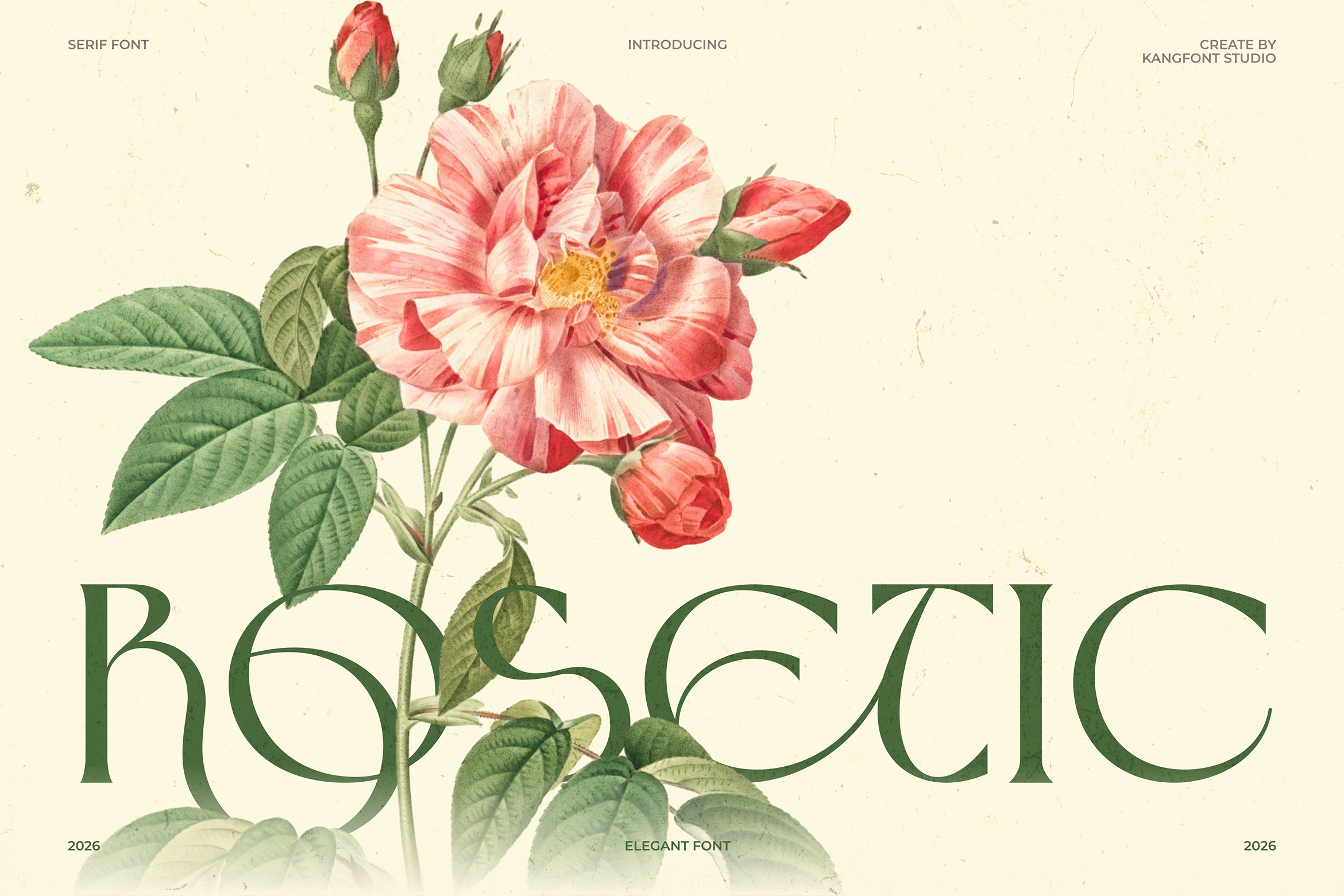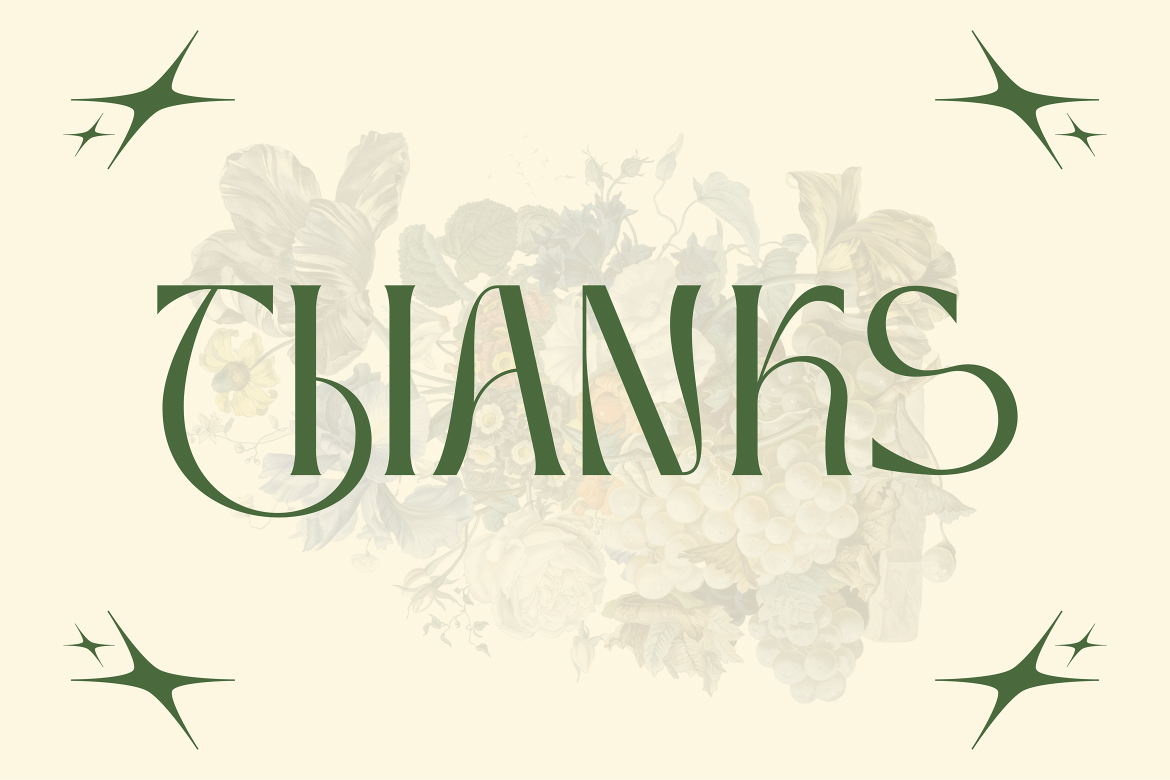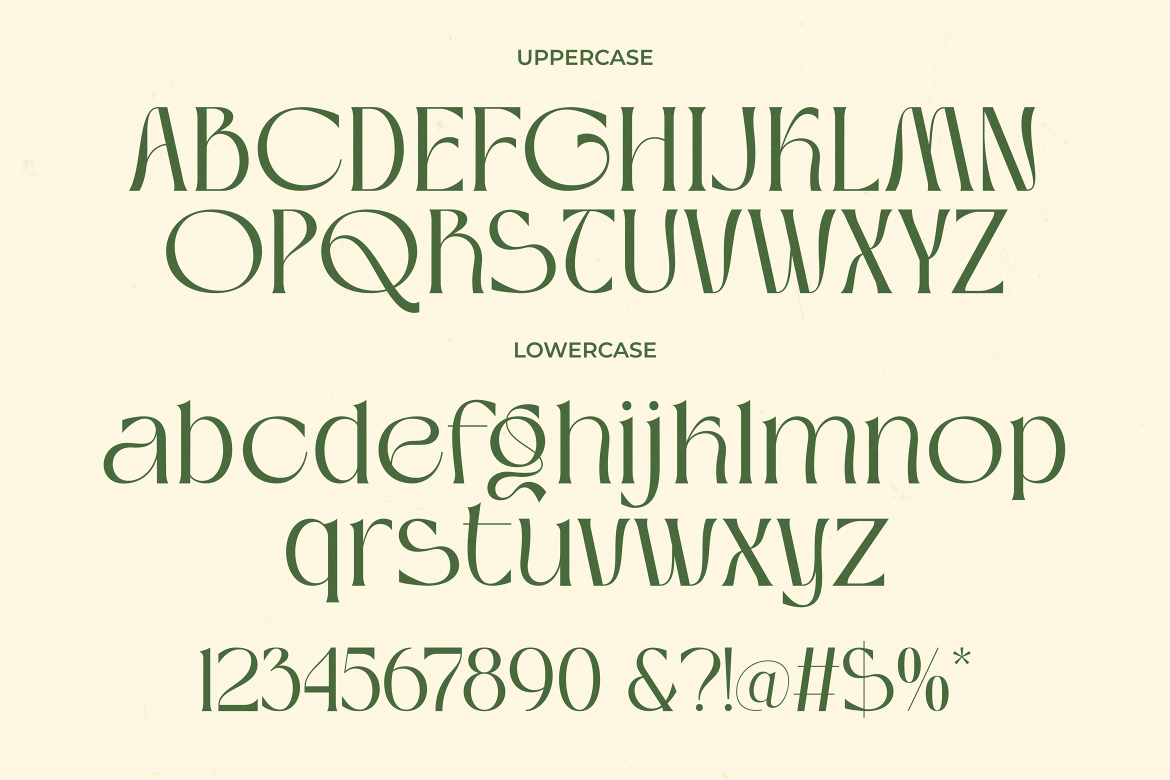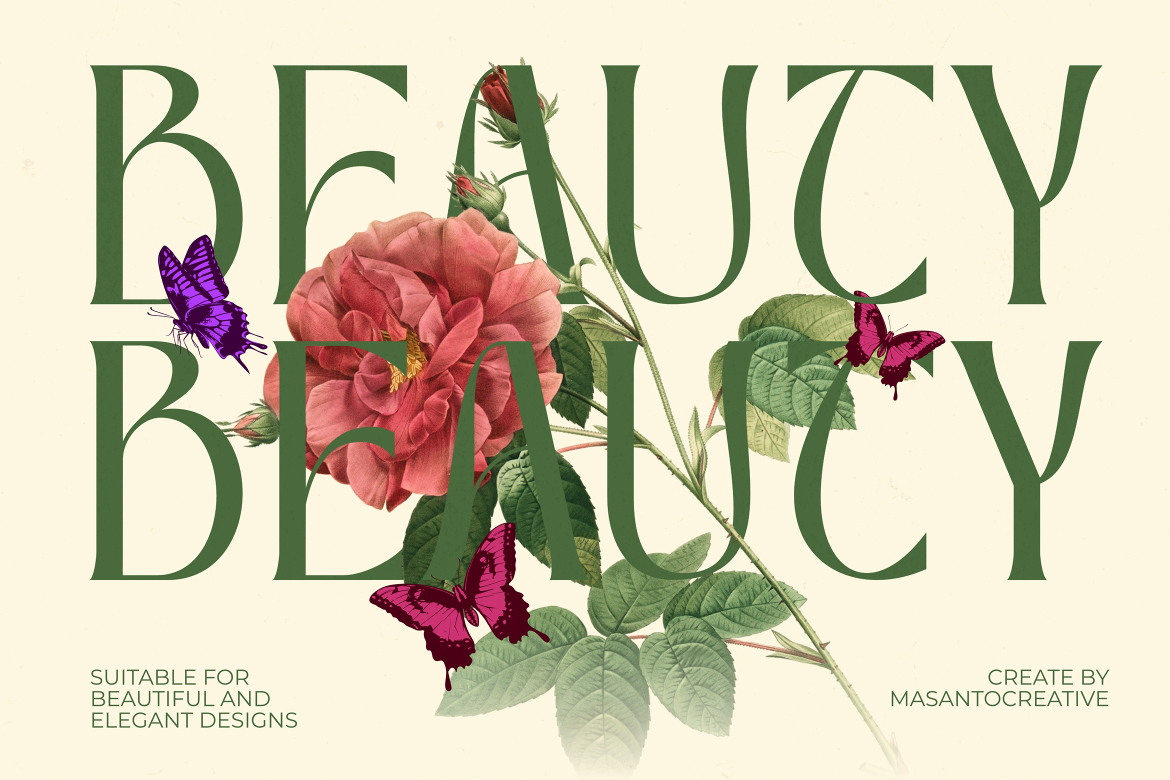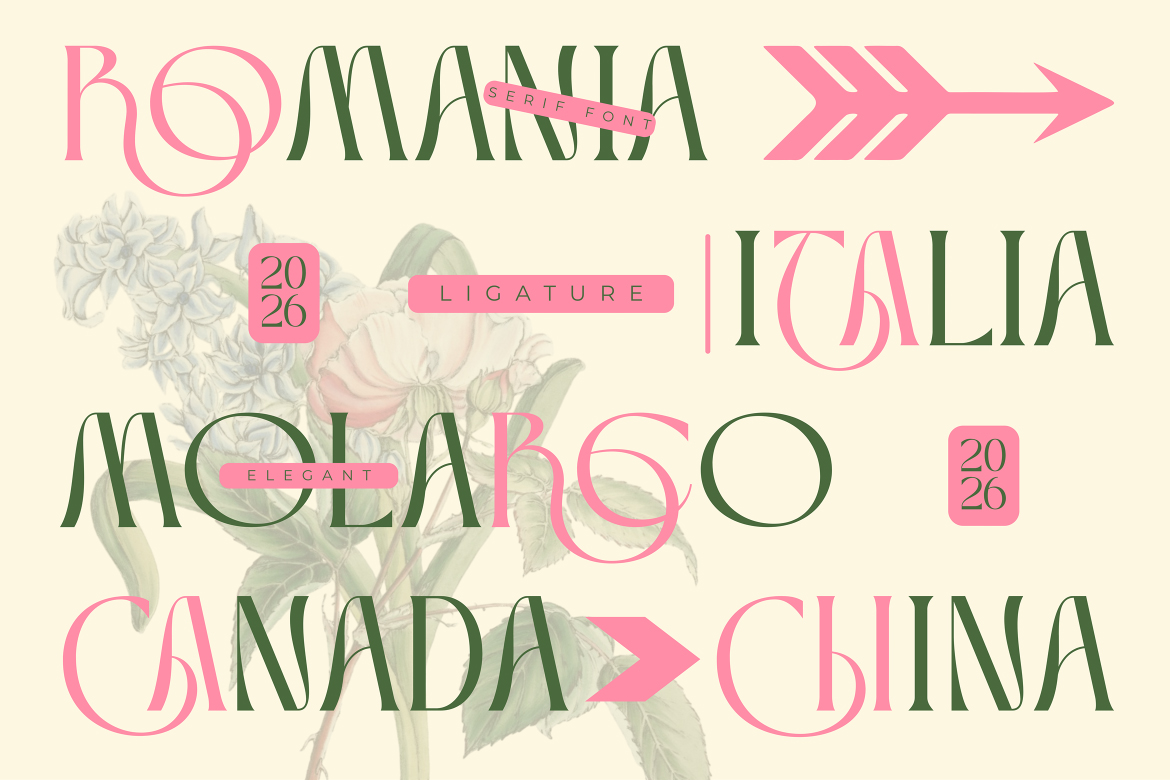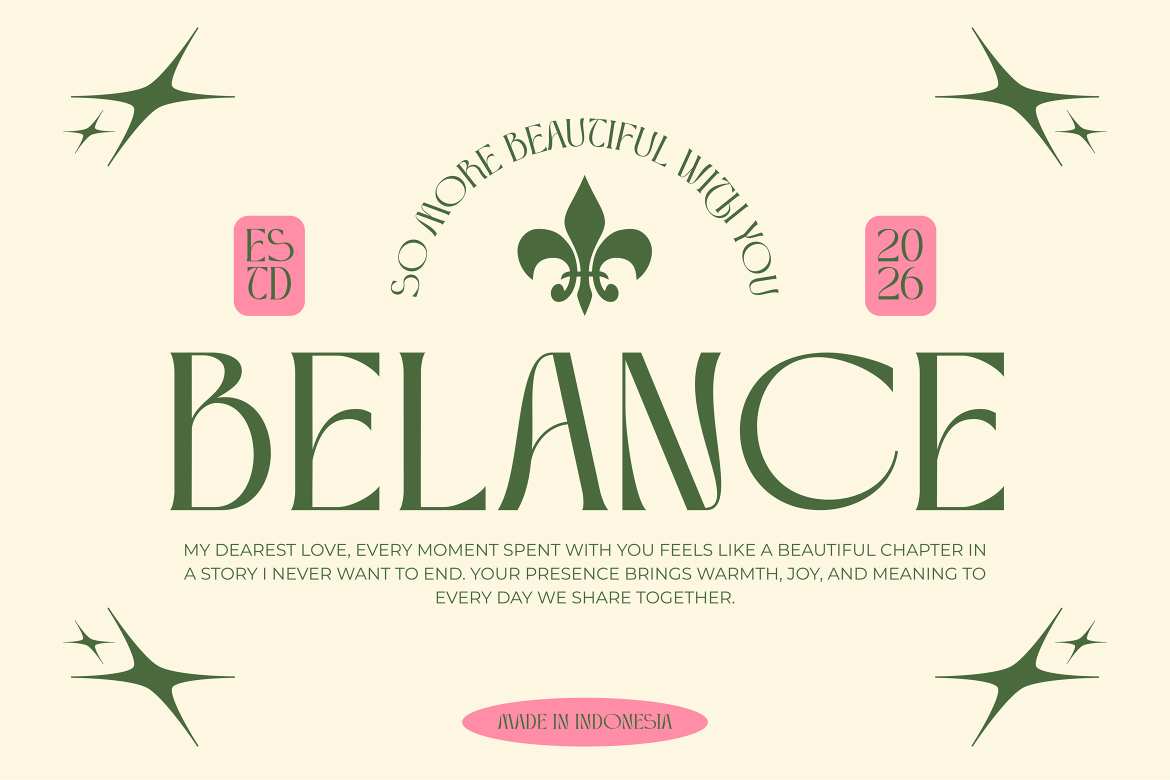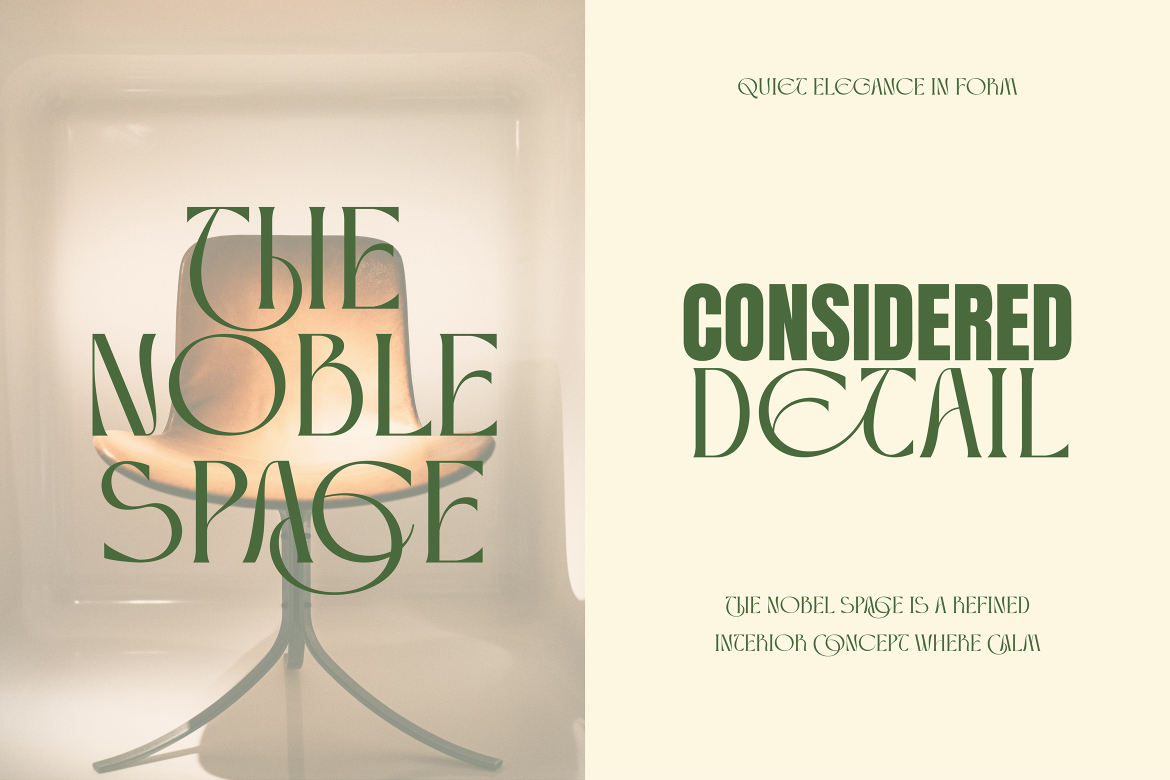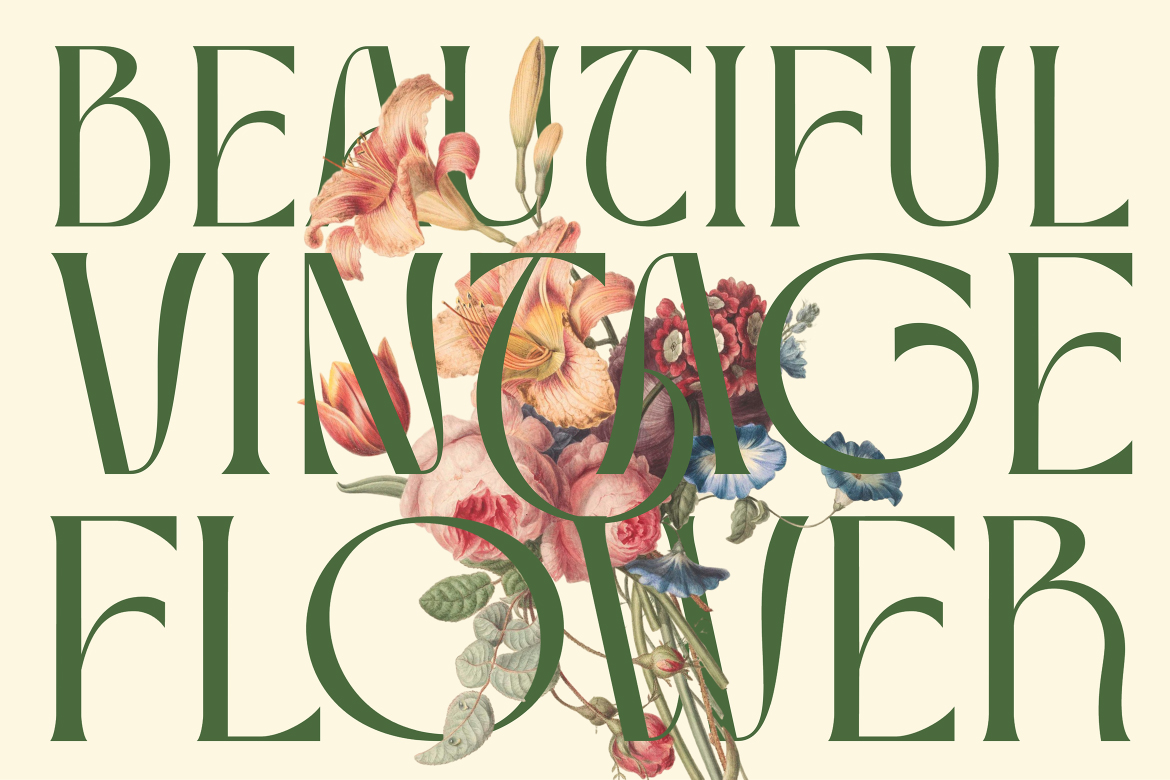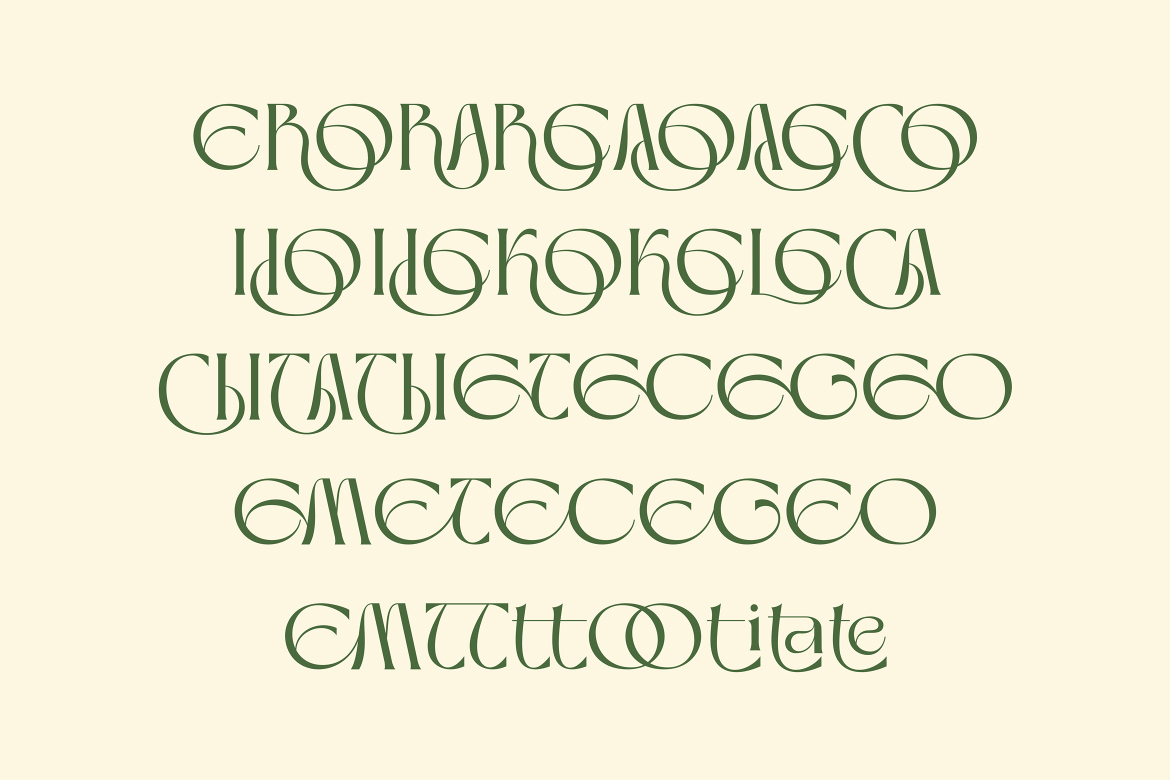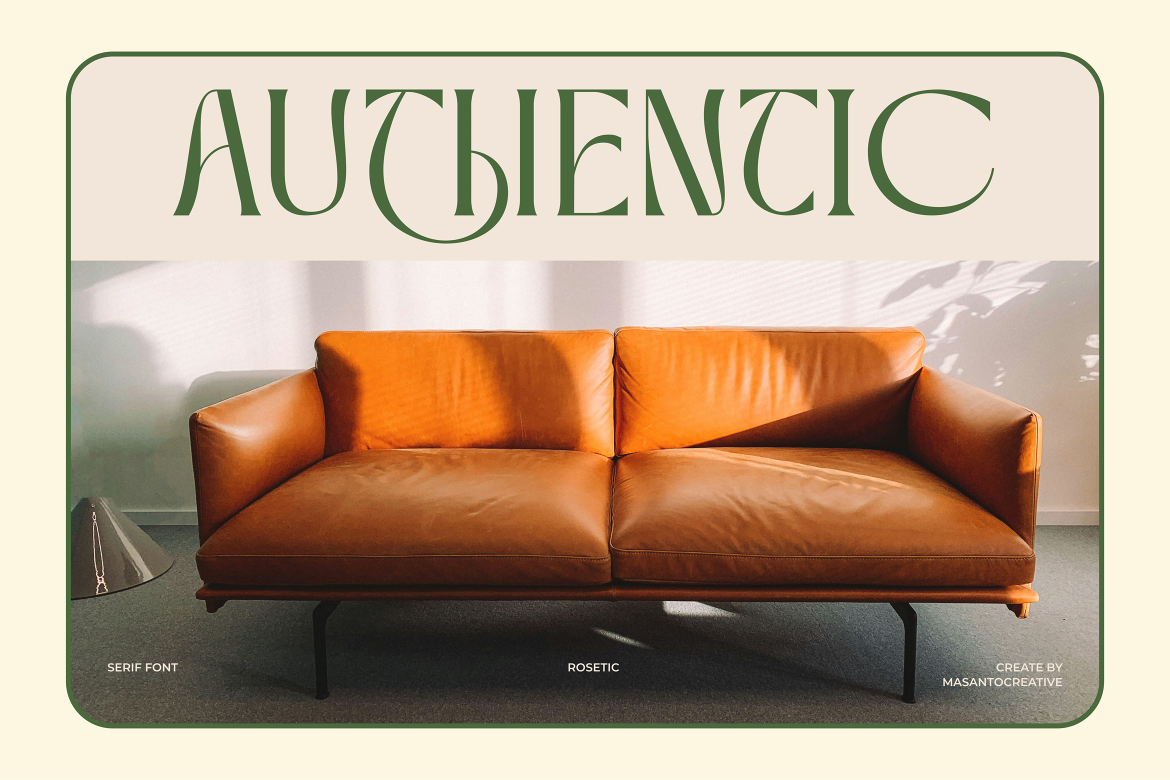
Rosetic – Elegant Serif Font
About Rosetic – Elegant Serif Font
Introducing Rosetic, an elegant serif font crafted for beautiful and sophisticated design work. Rosetic blends classic serif structure with distinctive ligatures and refined letterforms, giving your projects a unique, high-end aesthetic. Whether you're designing luxury branding, editorial layouts, wedding invitations, fashion lookbooks, or premium packaging, Rosetic delivers timeless elegance with a modern edge.
• Ligature & Stylistic alternate